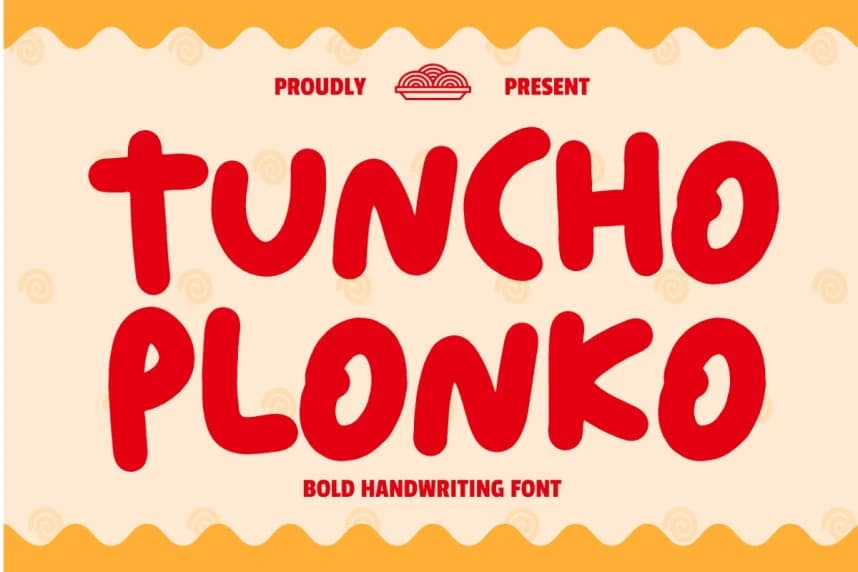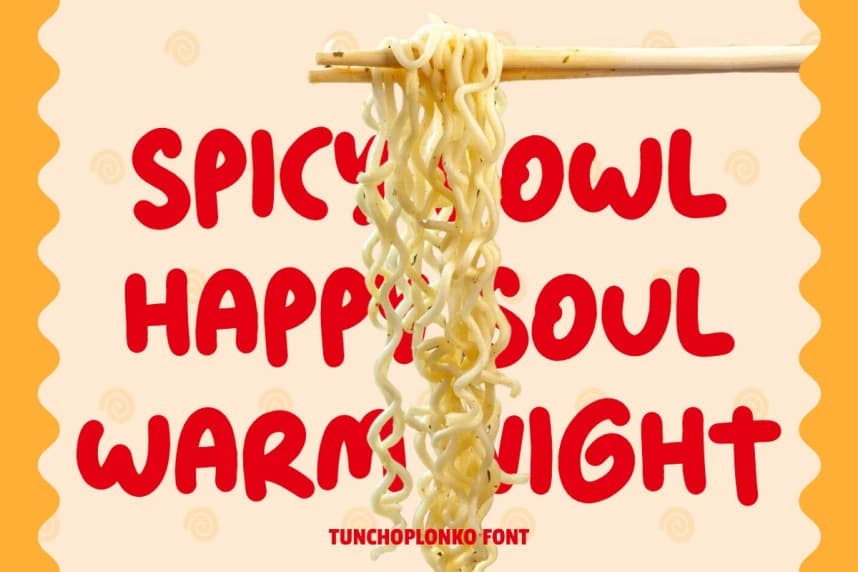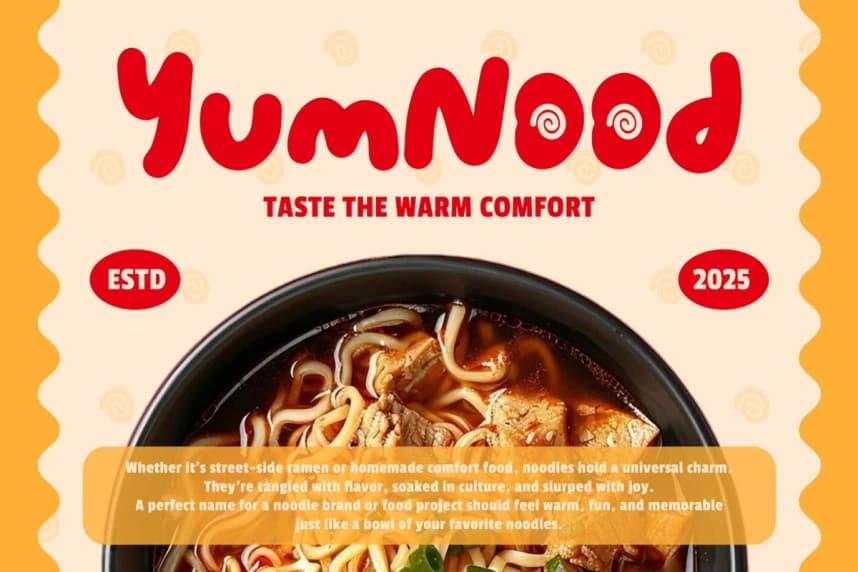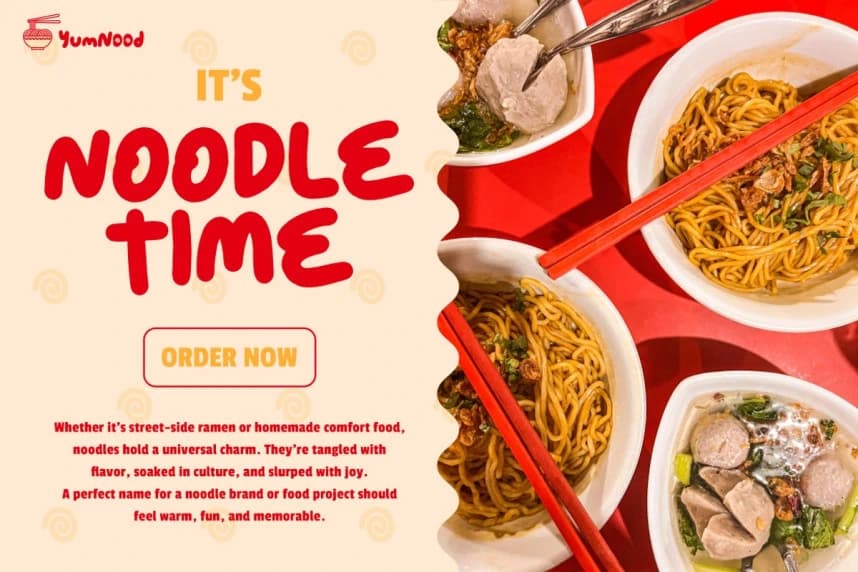
Tuncho Plonko Font
Tuncho Plonko Font - Bold Handwriting Font brings a bold, rounded, and playful touch to your creative projects. Each letterform carries a friendly, hand-drawn vibe with smooth curves and strong strokes that make the font easy to read while still looking fun and energetic.